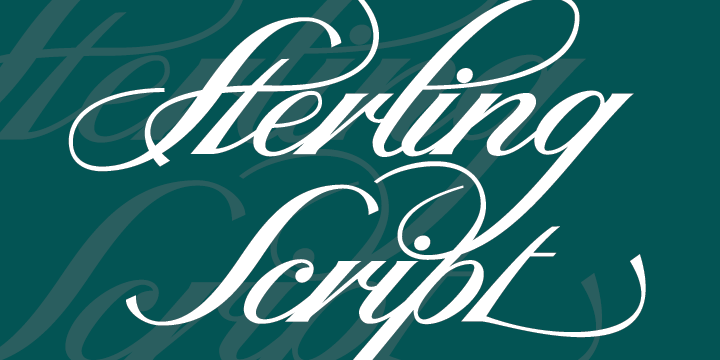
The Sterling Script Font is perfect for elegant wedding invitations, luxury product packaging, premium brand logos, handwritten quotes, calligraphy designs, greeting cards, romantic stationery, and sophisticated signature designs. This versatile typeface excels in wedding planners, luxury brands, boutique businesses, artisanal products, and any creative project seeking to convey elegance, romance, and personalized craftsmanship through beautiful script typography.
What makes Sterling Script Font so exciting is its authentic handwritten elegance that captures the timeless beauty of traditional calligraphy while offering modern versatility and functionality. The font features flowing letterforms with graceful curves, natural stroke variations, and connecting ligatures that create seamless, organic text flow. Its sophisticated script style evokes feelings of luxury, intimacy, and personal attention, making every design feel uniquely crafted and meaningful.
The Sterling Script Font family includes multiple stylistic variations: Regular, Bold, Light, and Ornate versions, each featuring contextual alternates, swash characters, and decorative flourishes. Additionally, it offers extensive ligature sets, beginning and ending swashes, and ornamental elements that enhance the font's calligraphic appeal. The collection includes multilingual support and specialized characters for professional lettering applications.
When you choose Sterling Script Font Free Download, you're investing in a typeface that brings authentic handwritten charm to your creative projects. This font seamlessly combines traditional calligraphy techniques with contemporary design requirements, ensuring excellent readability while maintaining its distinctive romantic character. The carefully balanced letter spacing and natural flow create harmonious text that feels both elegant and approachable.
Whether you're designing romantic wedding materials, creating luxury brand identities, developing artisanal product packaging, or crafting personalized stationery, this font delivers exceptional beauty and emotional impact. The Sterling Script Font transforms your content into heartfelt communications that resonate with audiences seeking authenticity, elegance, and personal connection in their visual experiences.
This remarkable typeface represents the perfect marriage of traditional craftsmanship and modern design sensibilities. Download this exquisite font today and discover how beautiful script typography can elevate your projects, create emotional connections, and add a touch of handcrafted elegance to your creative work.